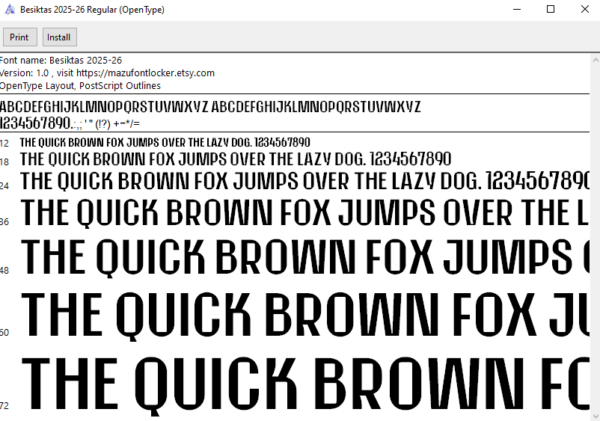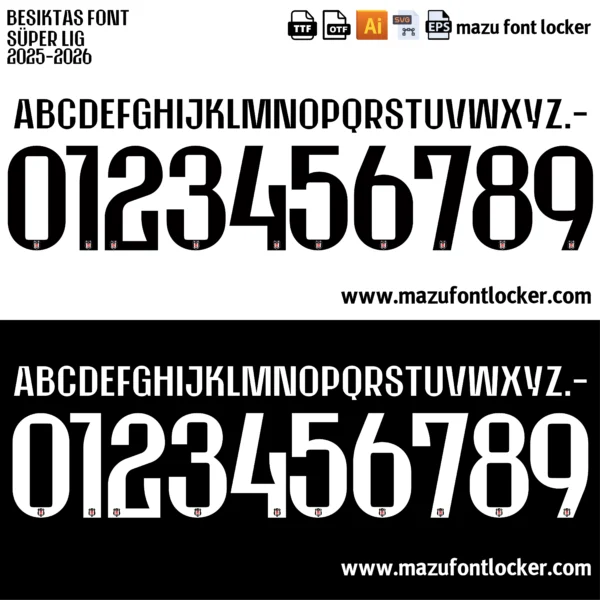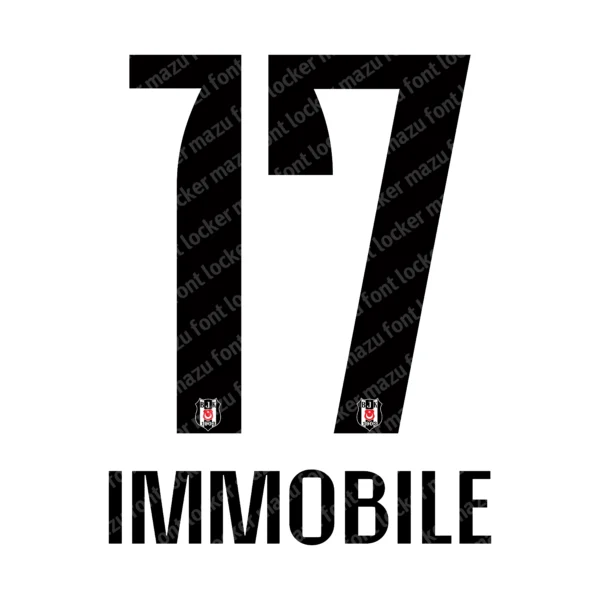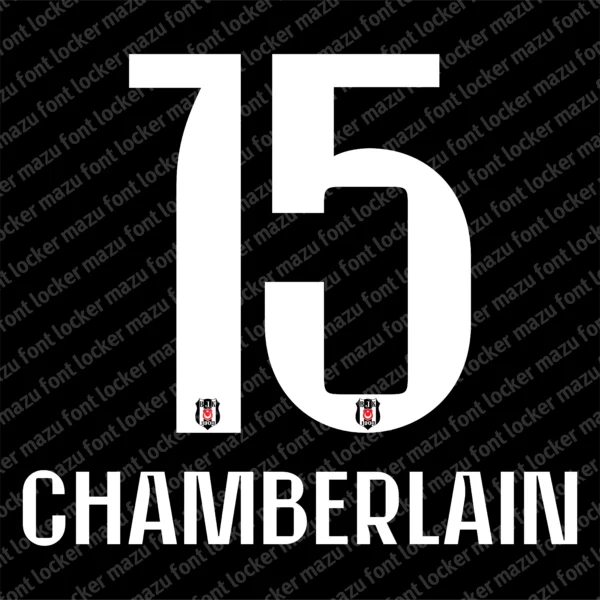
Besiktas 2025-2026 Font Vector – Bold Besiktas Turkish Masterpiece
The Besiktas 2025-2026 Font Vector perfectly recreates the bold and dynamic match-style lettering worn by Beşiktaş during the 2025-2026 Süper Lig season. This font captures the modern, energetic typography that reflects the passionate black-and-white spirit of the Kara Kartallar, making it ideal for creating authentic jersey mockups, premium fan merchandise, football graphics, social media content, and supporter designs that demand a sharp, professional Turkish football aesthetic.
Besiktas Font Kit 2025/2026 – Authentic Süper Lig Typeface
The Besiktas 2025-2026 Font Vector is a premium typeface that accurately recreates the official match lettering worn by Beşiktaş during the 2025/2026 Süper Lig season. This high-quality font kit captures the bold, dynamic, and modern typography that defines the Black Eagles’ latest kit design.
Designed for professional designers and passionate Beşiktaş fans, the Besiktas 2025-2026 Font Vector delivers perfect authenticity for creating jersey mockups, fan merchandise, matchday posters, social media graphics, and much more. It blends seamlessly with the club’s iconic black-and-white colors and fierce identity.
Why Choose Besiktas 2025-2026 Font Vector
This font stands out because of its sharp details and powerful presence. Every letter and number is crafted to match the exact style used on the players’ shirts this season. Whether you are making realistic shirt templates or eye-catching football content, the Besiktas 2025-2026 Font Vector gives your designs that authentic Turkish Süper Lig look.
The letterforms in the Besiktas 2025-2026 Font Vector are tall, bold, and highly readable. The strokes have a strong and controlled weight that looks powerful on the back of jerseys while maintaining excellent clarity.
The numerals use bold curves and firm edges, giving them a modern and aggressive appearance. This design ensures great legibility whether used in large print formats, digital mockups, or video content.
• Full uppercase A–Z and numbers 0–9 in authentic Besiktas 2025-2026 style
• Special Beşiktaş logo glyph for accurate shirt number detailing
• Create highly realistic Süper Lig jersey mockups with accurate lettering
• Design stunning matchday posters, score graphics, and squad announcements
• Produce custom Beşiktaş merchandise with a professional football aesthetic
• Includes the exact logo glyph placement used under player numbers